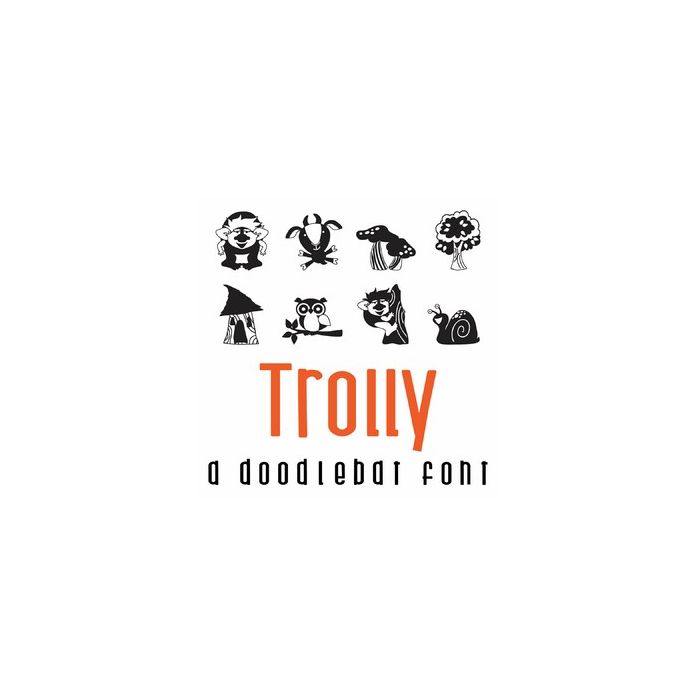
This fun doodlebat font features 26 adorable troll and forest images, including animals. Perfect for cards, gifts, decor, crafts, scrap book pages, planner stickers and more!